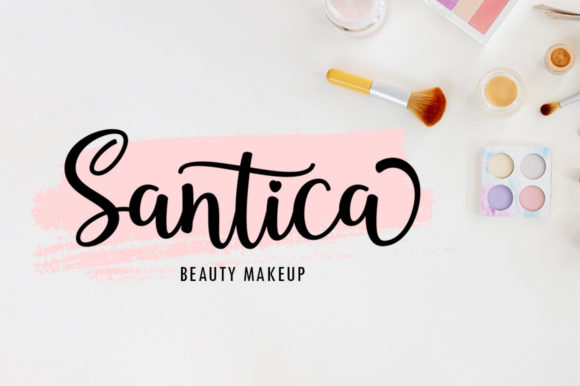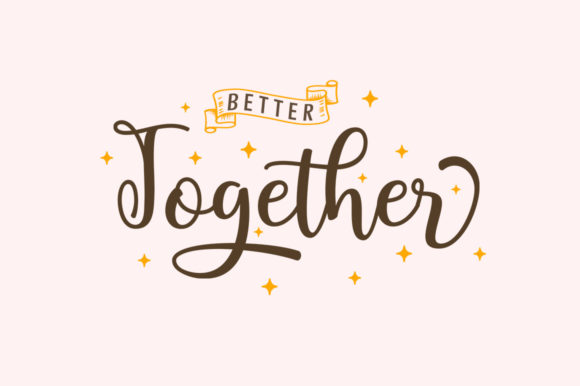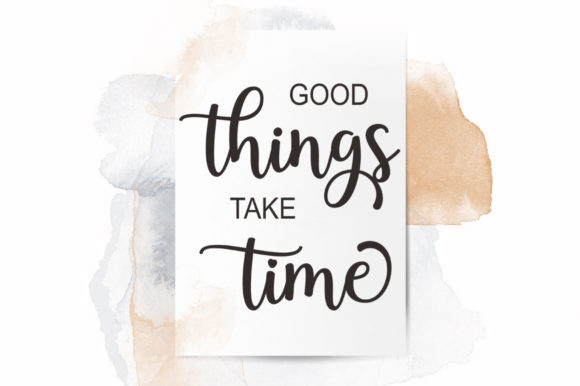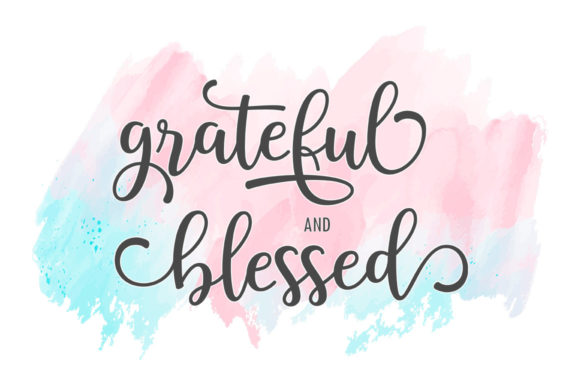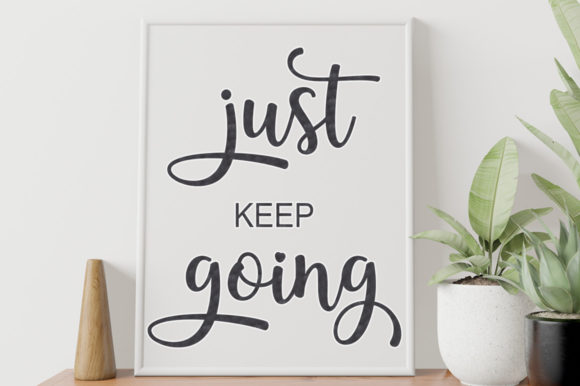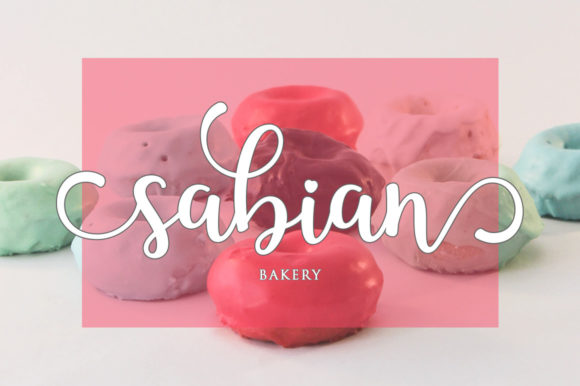
Candylove Font: The Sweetest Calligraphy Typeface for Your Design Projects
Are you looking for a font that adds a touch of luxury and romance to your design projects? Look no further than the Candylove Font! This beautiful calligraphy typeface is perfect for designers and crafters who want to create stunning visuals that capture the hearts of their audience. In this article, we’ll dive into the features and benefits of Candylove Font, and explore how it can elevate your design game.
What is Candylove Font?
Candylove Font is a romantic and sweet calligraphy typeface that is designed to make your design projects stand out. Its unique feature is that the characters dance along the baseline, creating a whimsical and luxurious feel. This font is perfect for a variety of design projects, including wedding invitations, branding, packaging, and more.
Key Features of Candylove Font
- PUA Encoded: Candylove Font is PUA (Private Use Area) encoded, which means that you can access all of the amazing glyphs and ligatures with ease. This encoding allows you to use the font’s special characters, such as swashes and flourishes, without any hassle.
- Ligatures and Glyphs: The font comes with a range of ligatures and glyphs that can be used to add a personal touch to your designs. These special characters can be used to create beautiful and unique text arrangements.
- Romantic and Luxurious Feel: Candylove Font has a distinctly romantic and luxurious feel, making it perfect for designs that require a touch of elegance and sophistication.
- Versatile: This font is versatile and can be used for a wide range of design projects, from wedding invitations to branding and packaging.
Benefits of Using Candylove Font
So, why should you choose Candylove Font for your design projects? Here are just a few benefits of using this beautiful font:
- Adds Luxury and Sophistication: Candylove Font adds a touch of luxury and sophistication to any design project, making it perfect for high-end brands and designers.
- Unique and Eye-Catching: The font’s unique characters and ligatures make it stand out from other fonts, ensuring that your designs grab the attention of your audience.
- Time-Saving: With Candylove Font, you can create stunning designs in no time. The font’s ligatures and glyphs save you time and effort, allowing you to focus on other aspects of your design project.
How to Use Candylove Font in Your Design Projects
- Wedding Invitations: Candylove Font is perfect for wedding invitations, adding a touch of romance and luxury to your designs.
- Branding and Packaging: Use Candylove Font to create stunning brand identities and packaging designs that stand out from the competition.
- Stationery and Greeting Cards: Add a touch of elegance and sophistication to your stationery and greeting cards with Candylove Font.